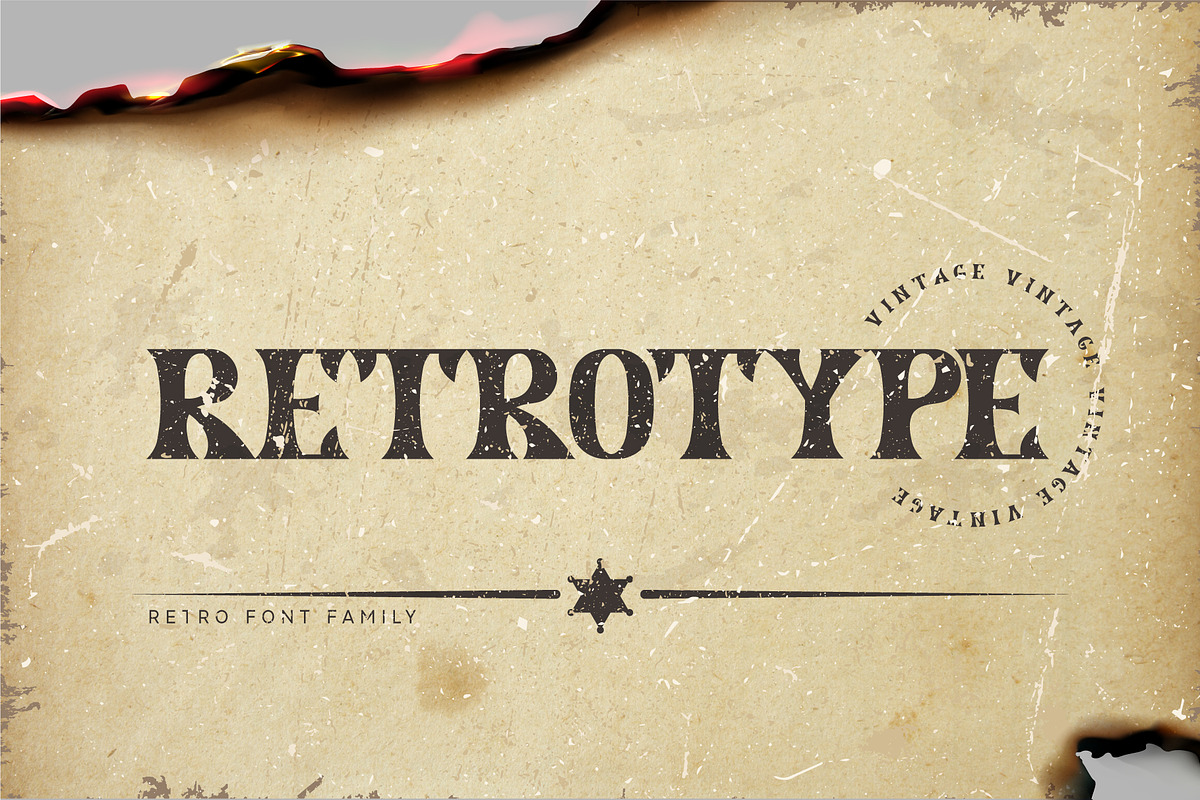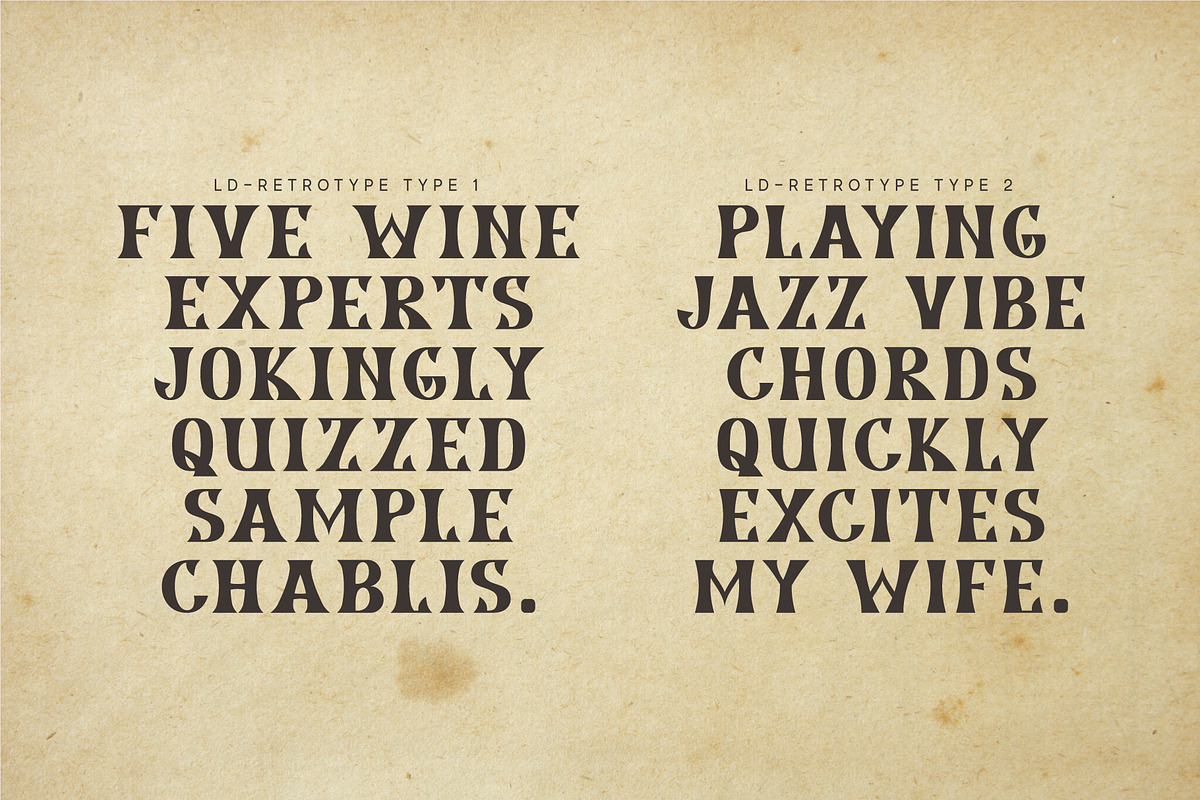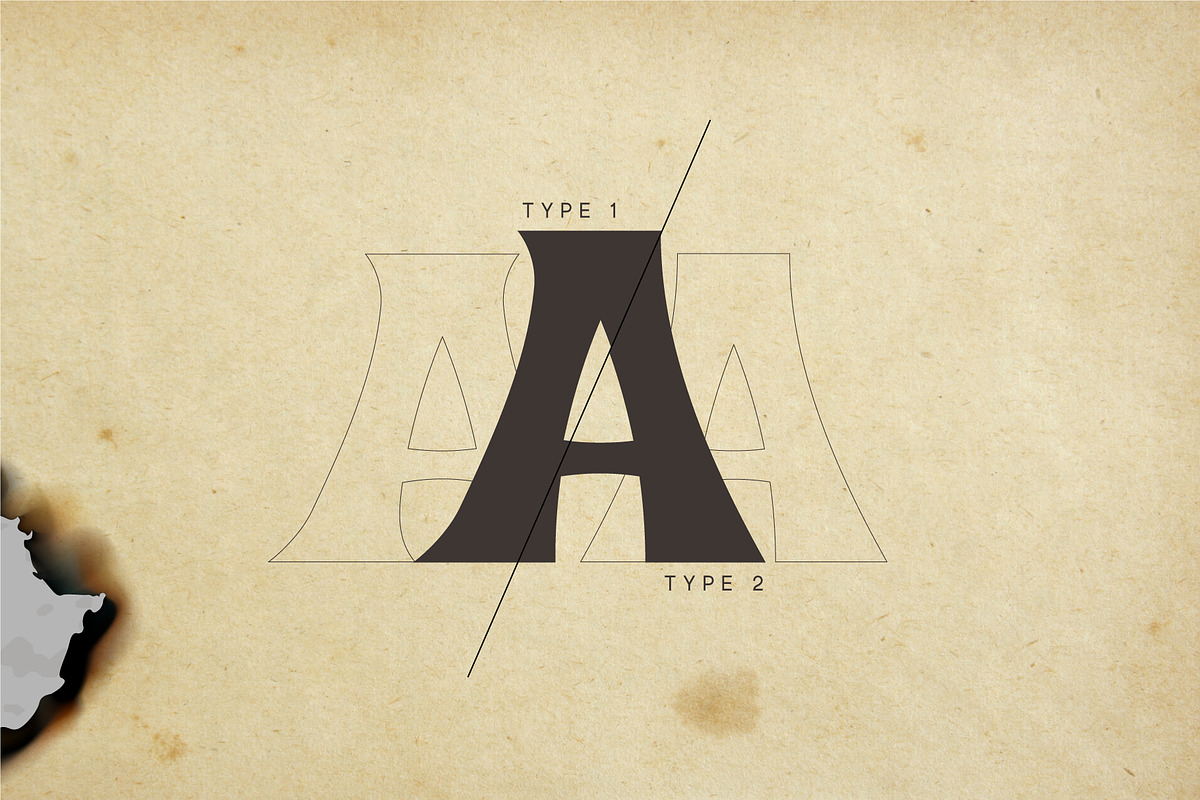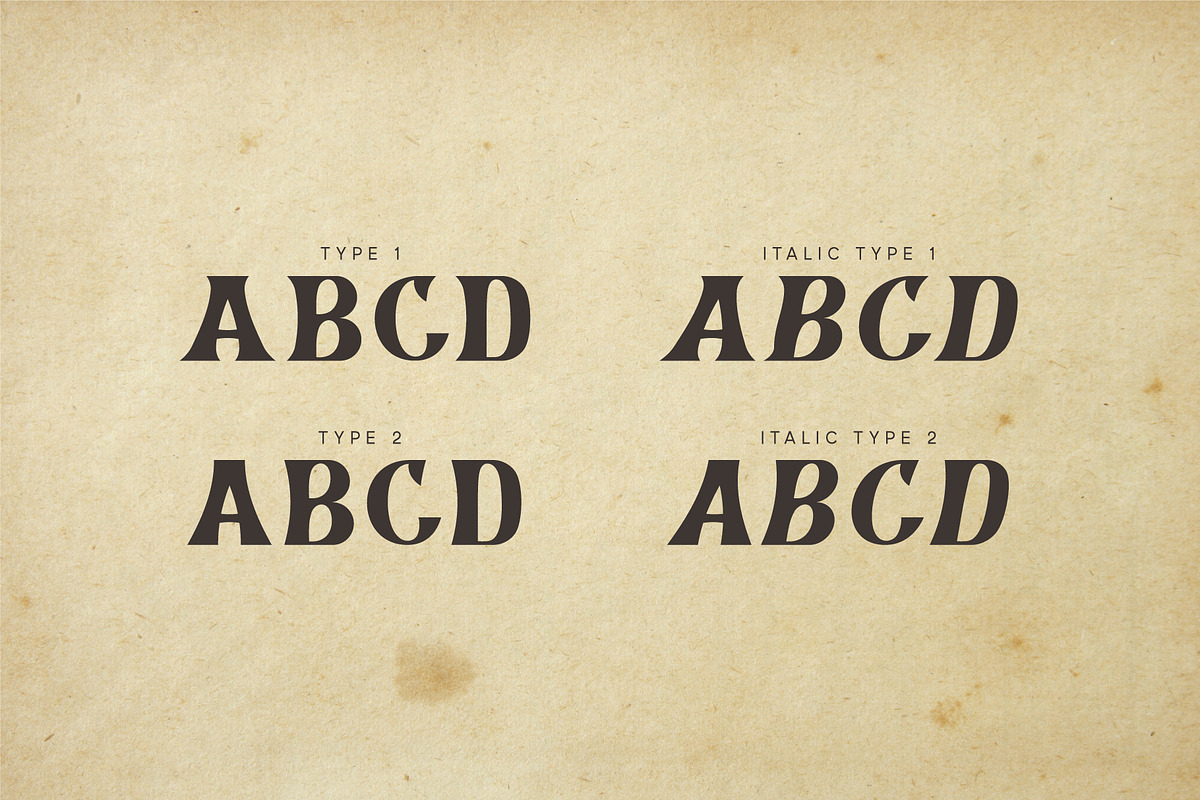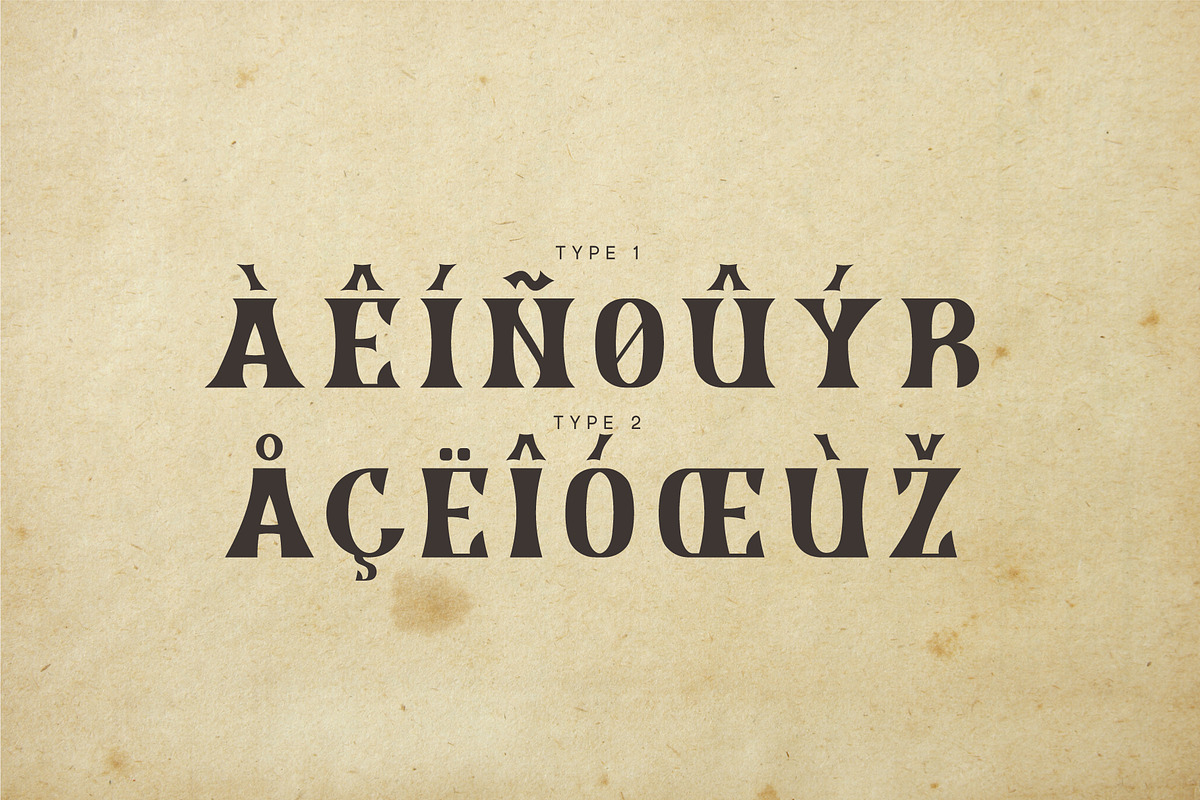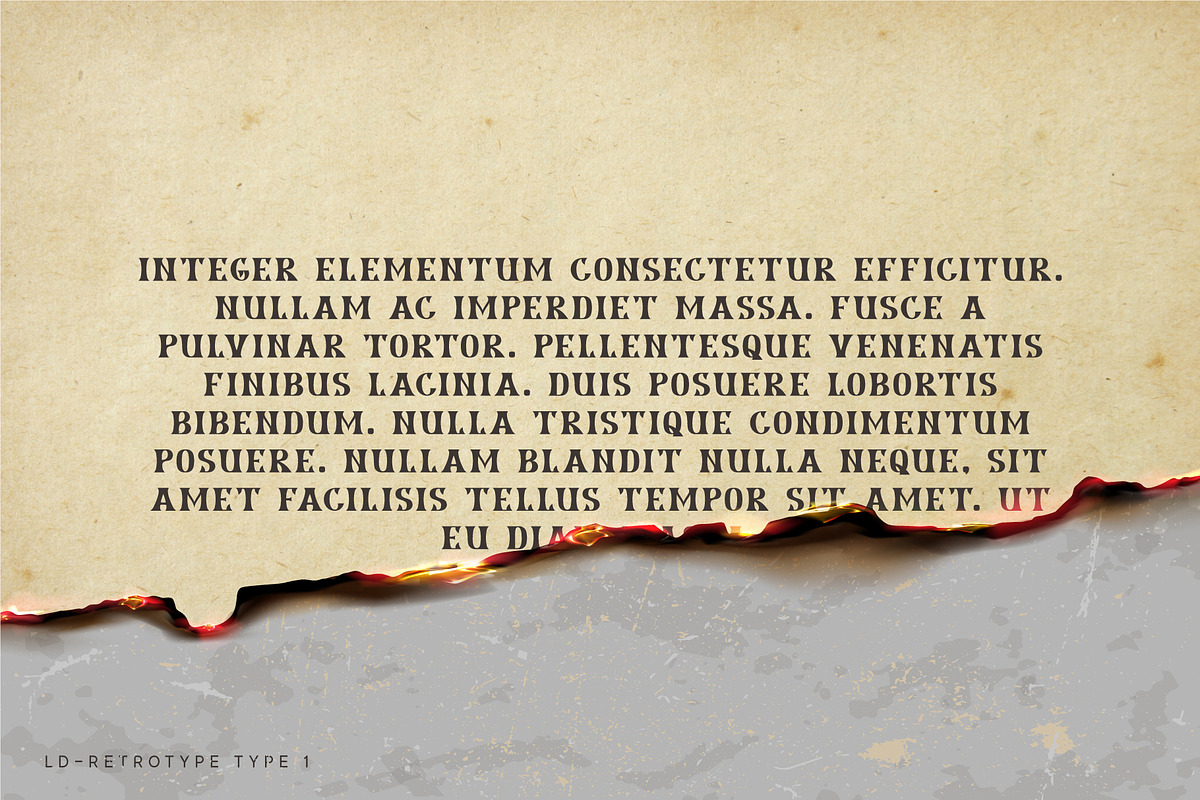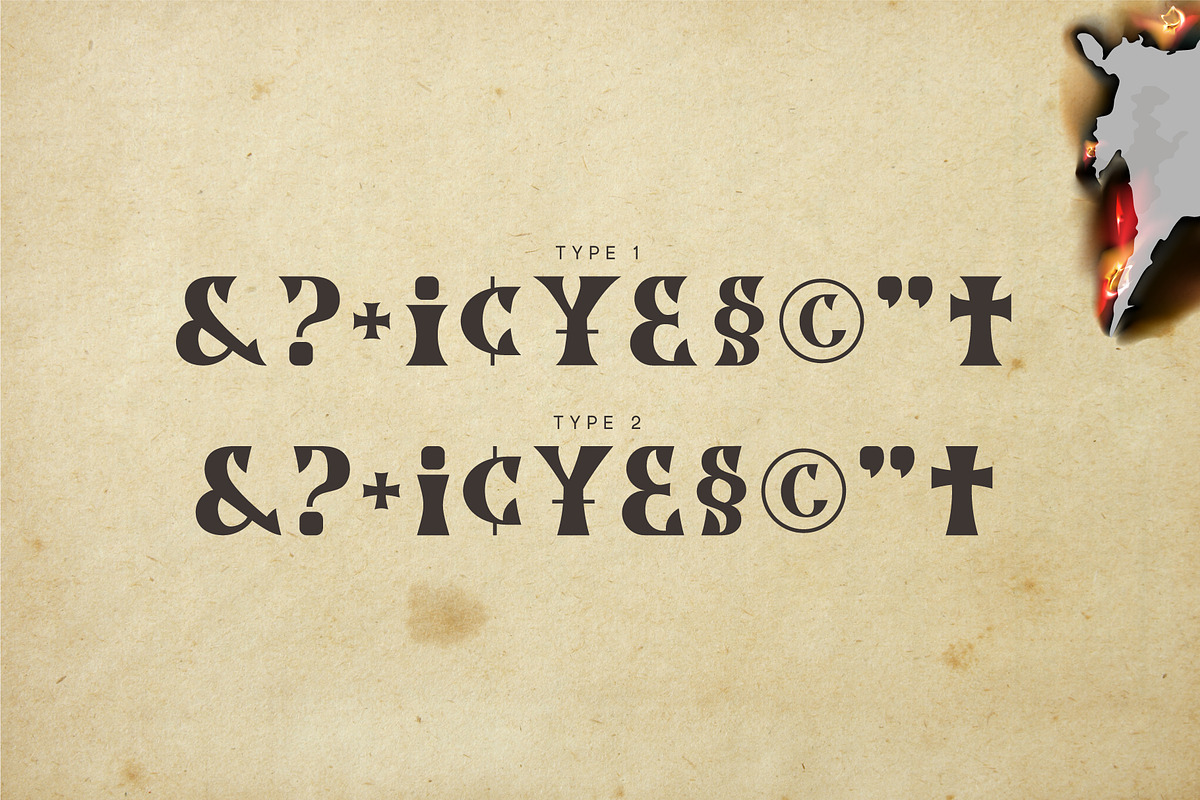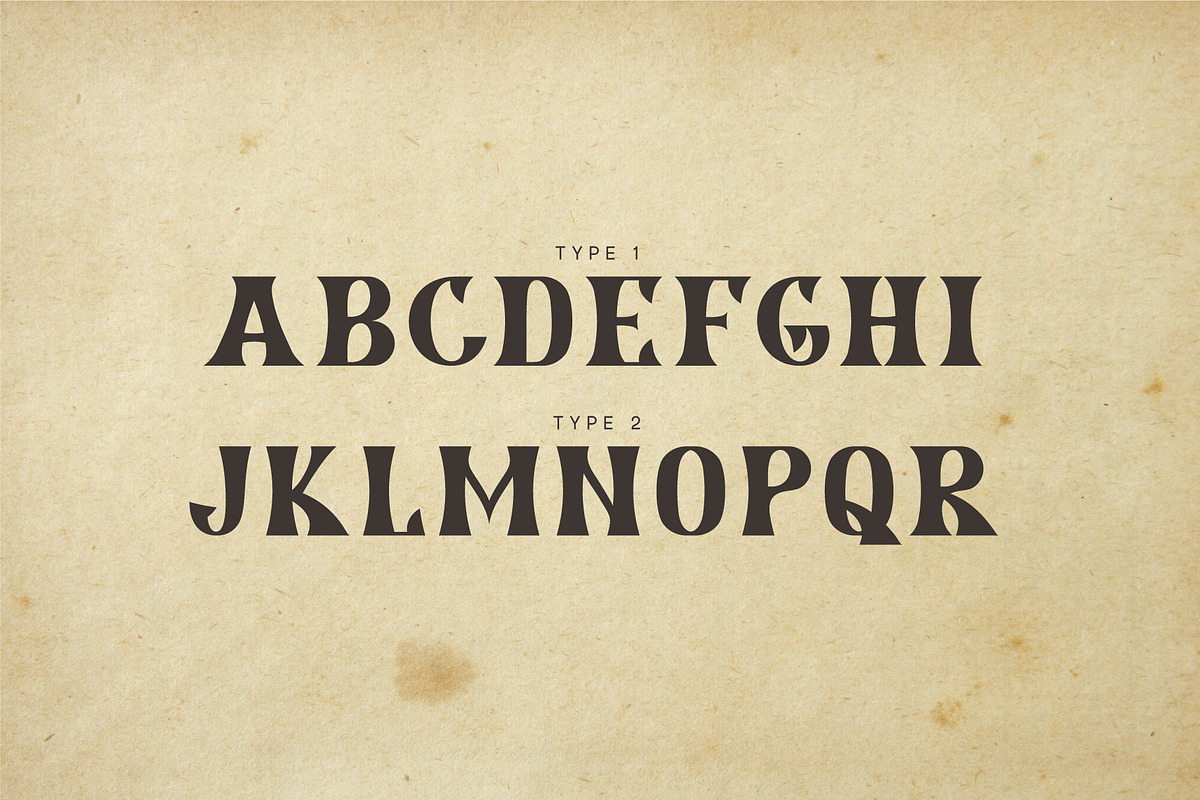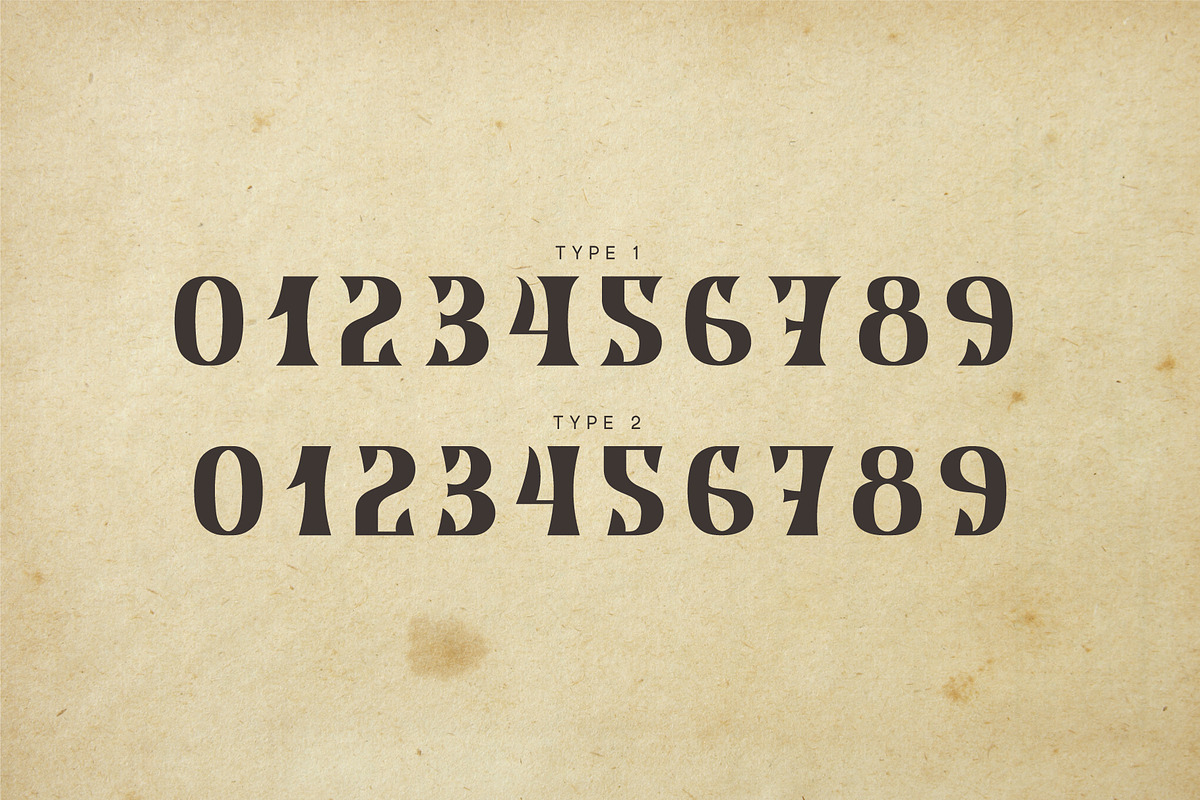
Retrotype. Western Serif font family
Introducing retro font Retrotype. Family's vintage style will suit both 50s-80s cartoon illustrations and wild west designs. Retro family has 2 types of styles, complete with different curves. Carefully constructed glyph shapes look great in both large amounts of text and single words in headings. Ideal for vintage and retro designs.
- Vintage style.
- Uppercase and lowercase the same size.
- Numbers & basic Punctuation.
- 2 fonts in family.
- Kerning.